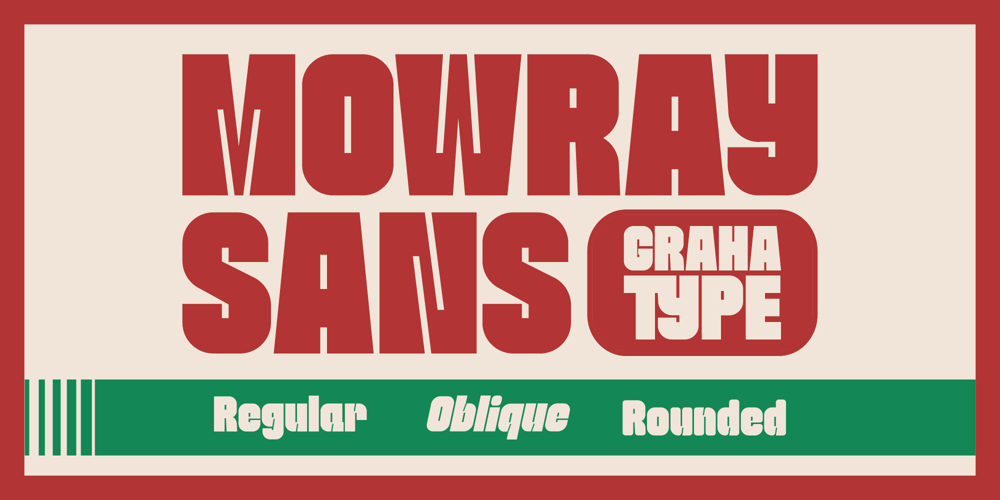
Mowray Font Family was designed by Toni Nugraha and published by Graha Type. Mowray contains 4 styles and family package options. Mowray is a bold sans serif font that embodies modernity and coolness with its strong, clean lines. Its striking presence makes it perfect for posters, t-shirt designs, and a wide range of other design projects. Mowray’s confident style ensures it stands out in any context, offering both readability and impact. Whether you’re creating eye-catching visuals for an event, designing a trendy t-shirt, or making bold statements in your branding, Mowray adds a fresh and edgy touch to your designs.Whats Included :Standard GlyphsLigaturesPUA Encoded CharactersMultilingual SupportFeel free to email us at grahatype@gmail.com if you have any questions or require assistance. We look forward to helping you with your design needs!